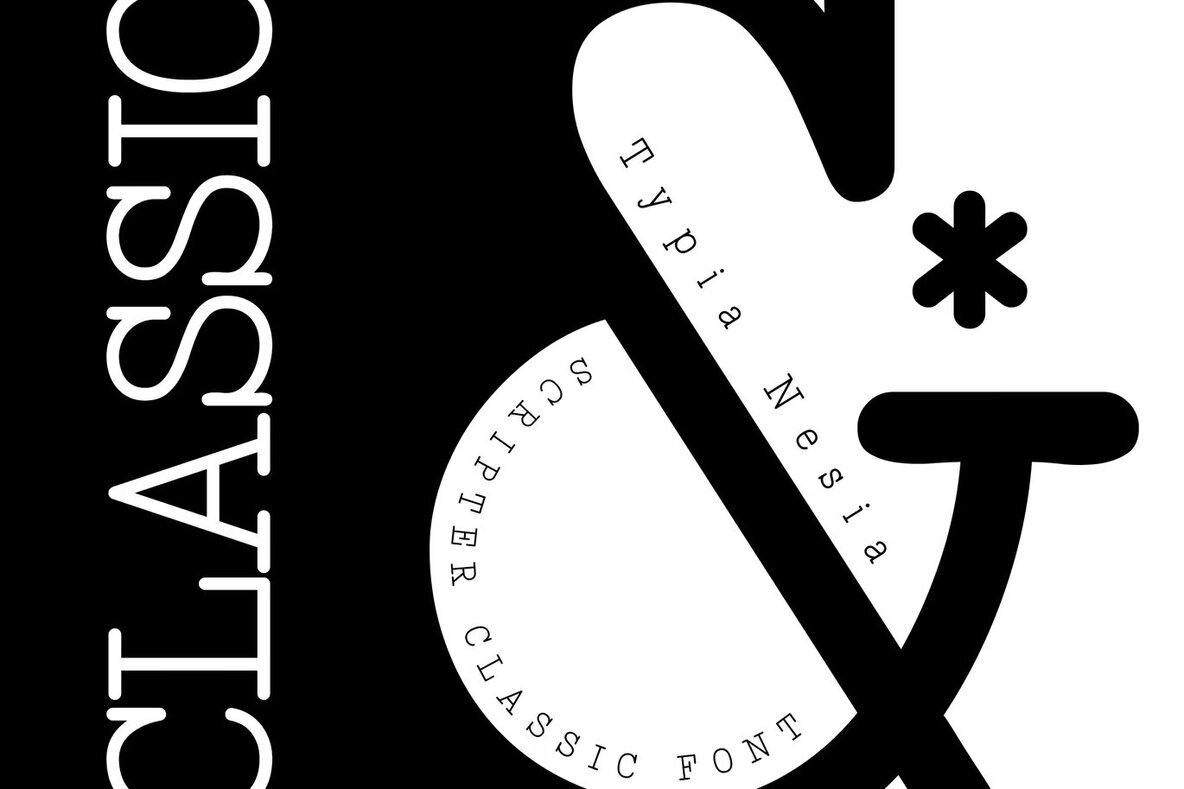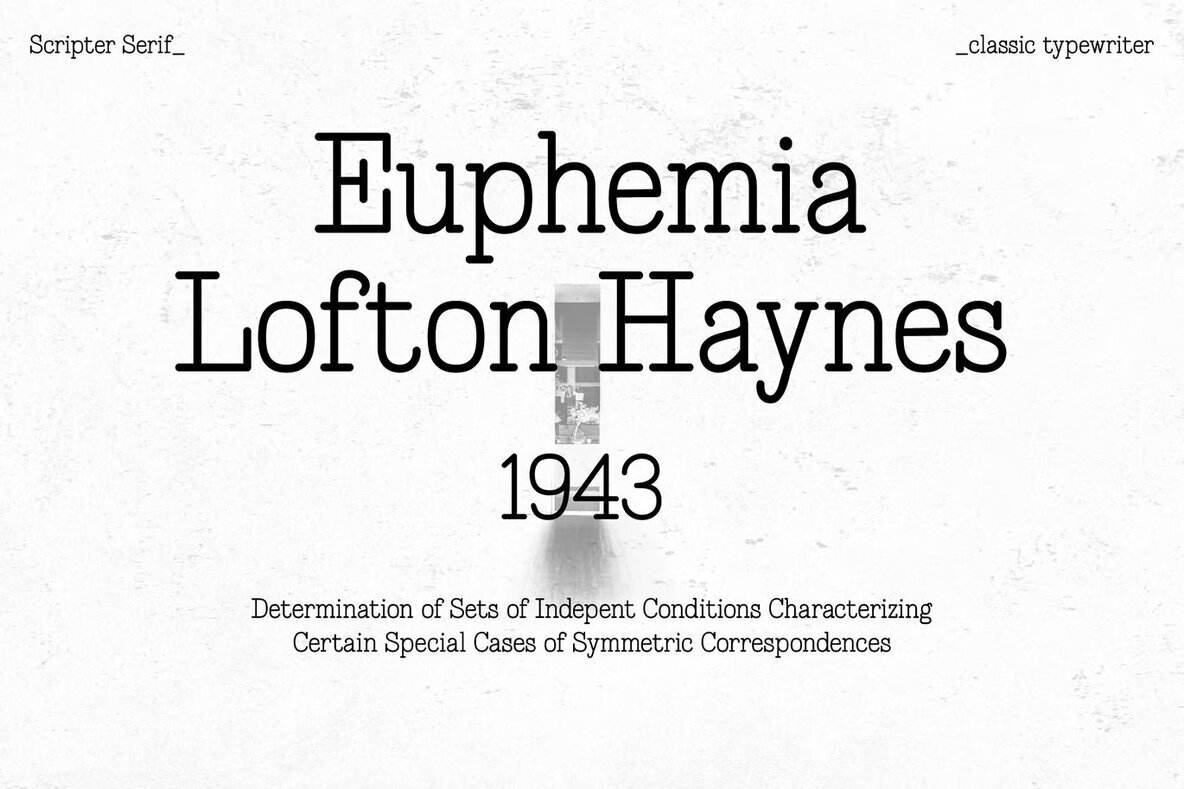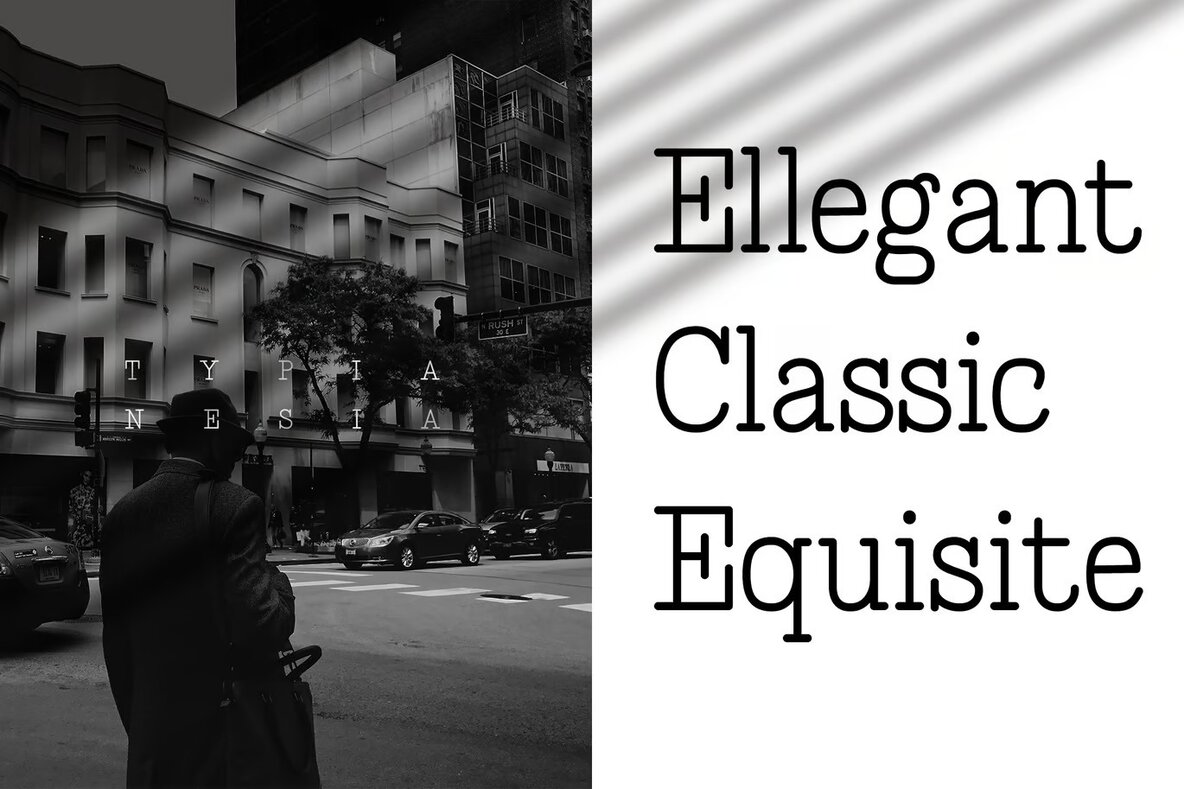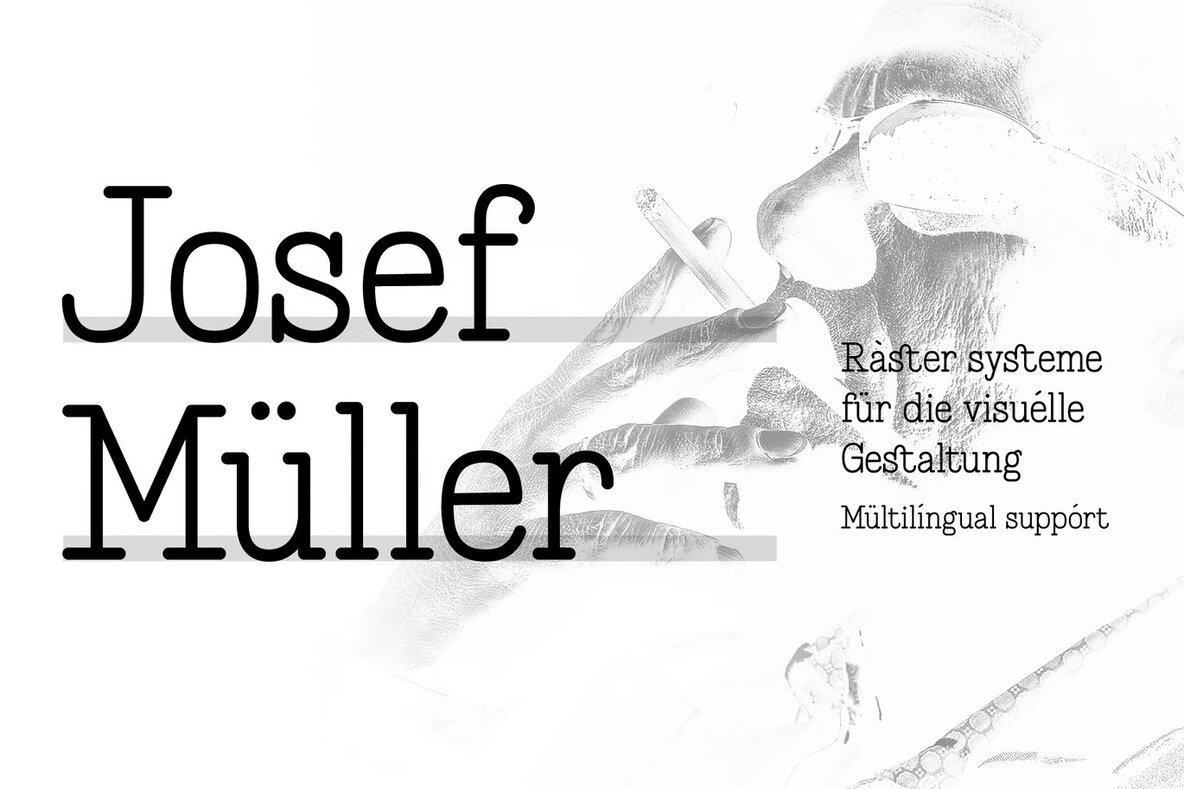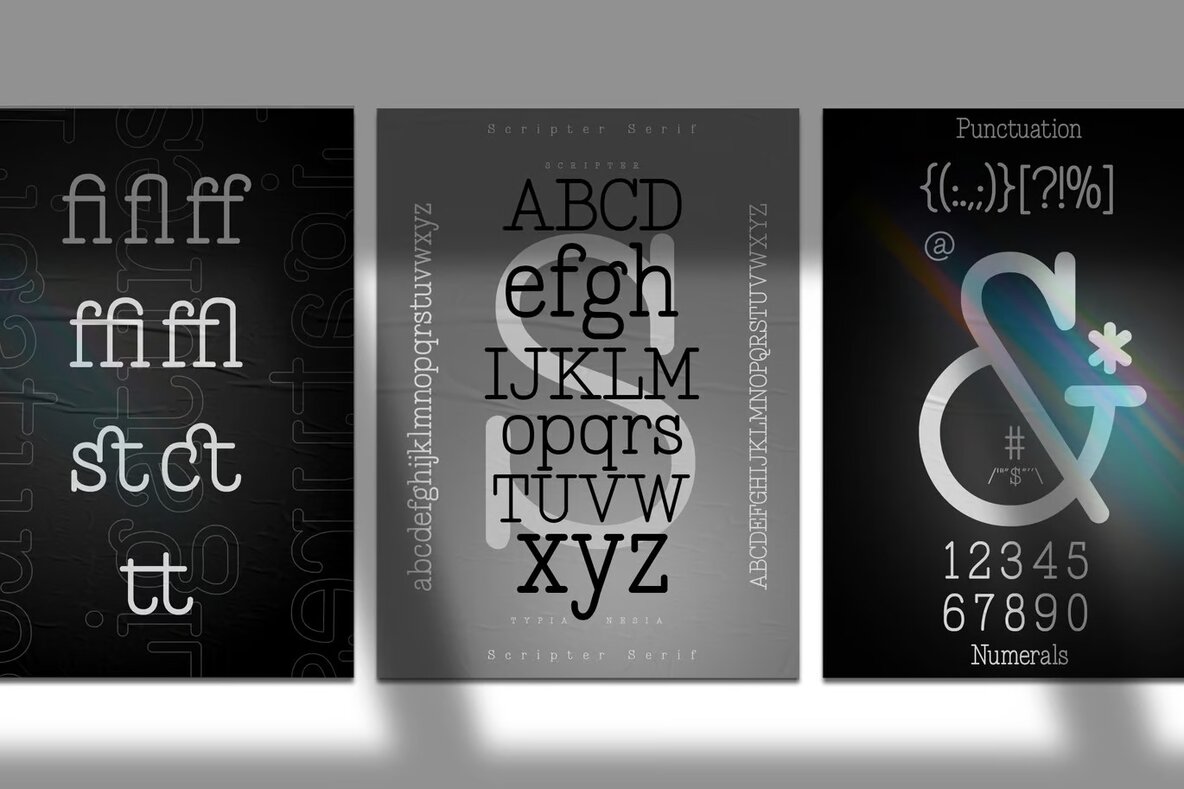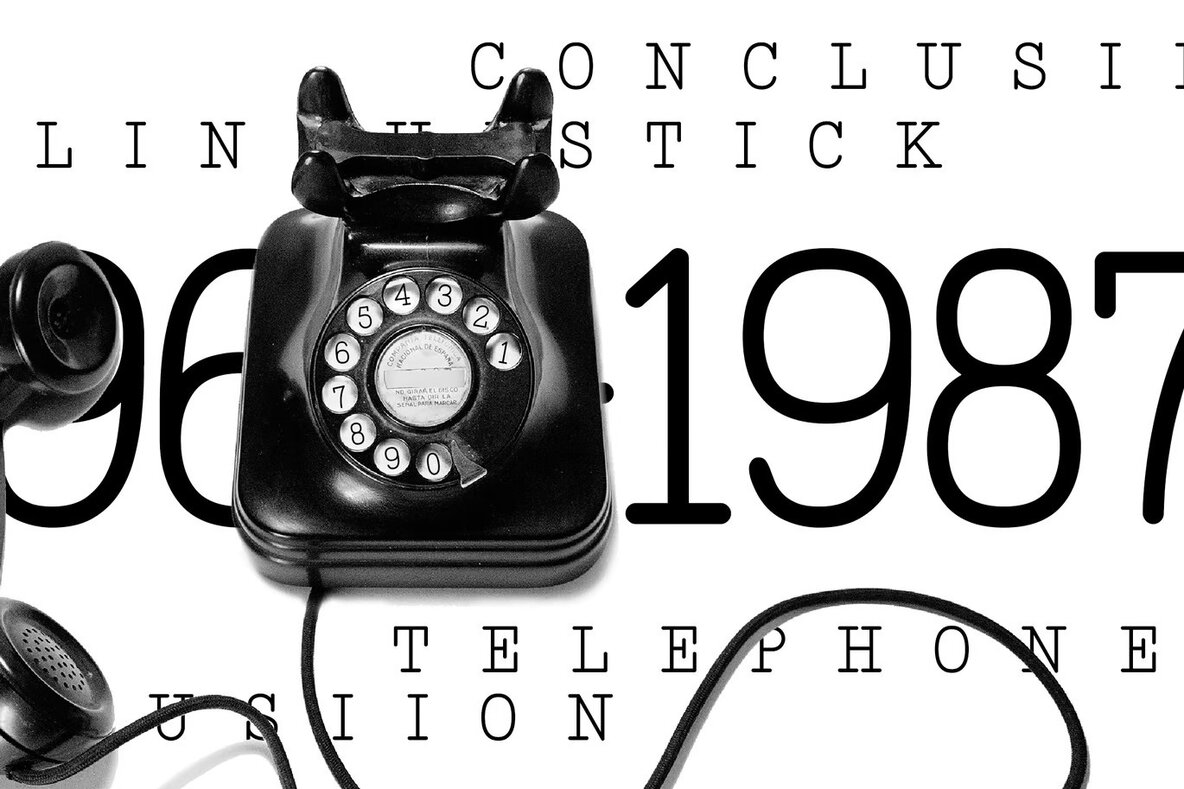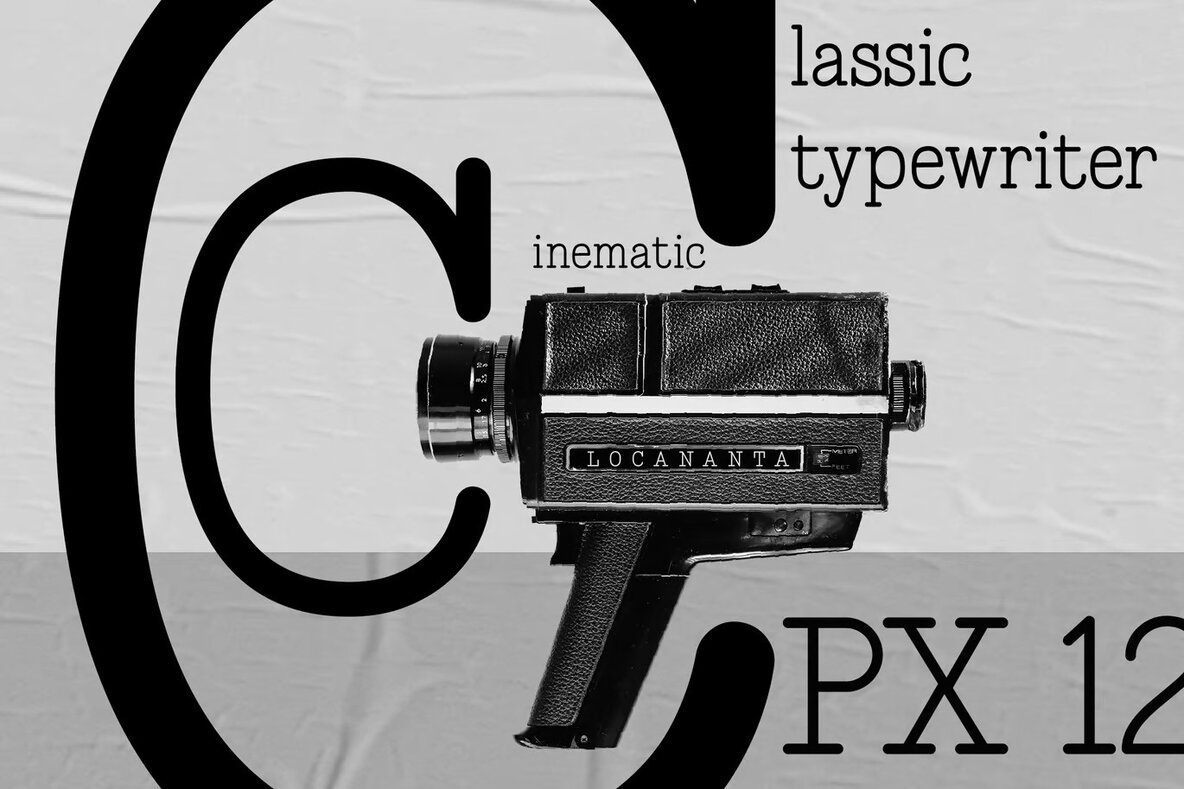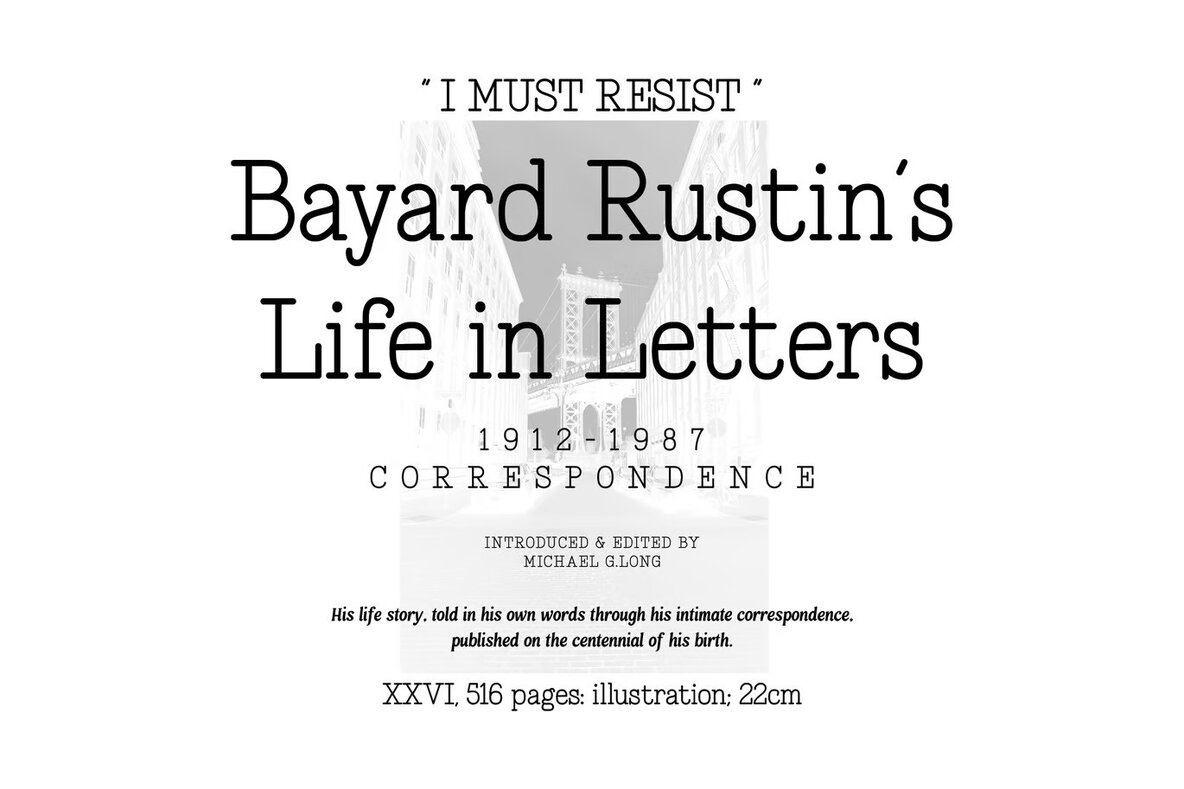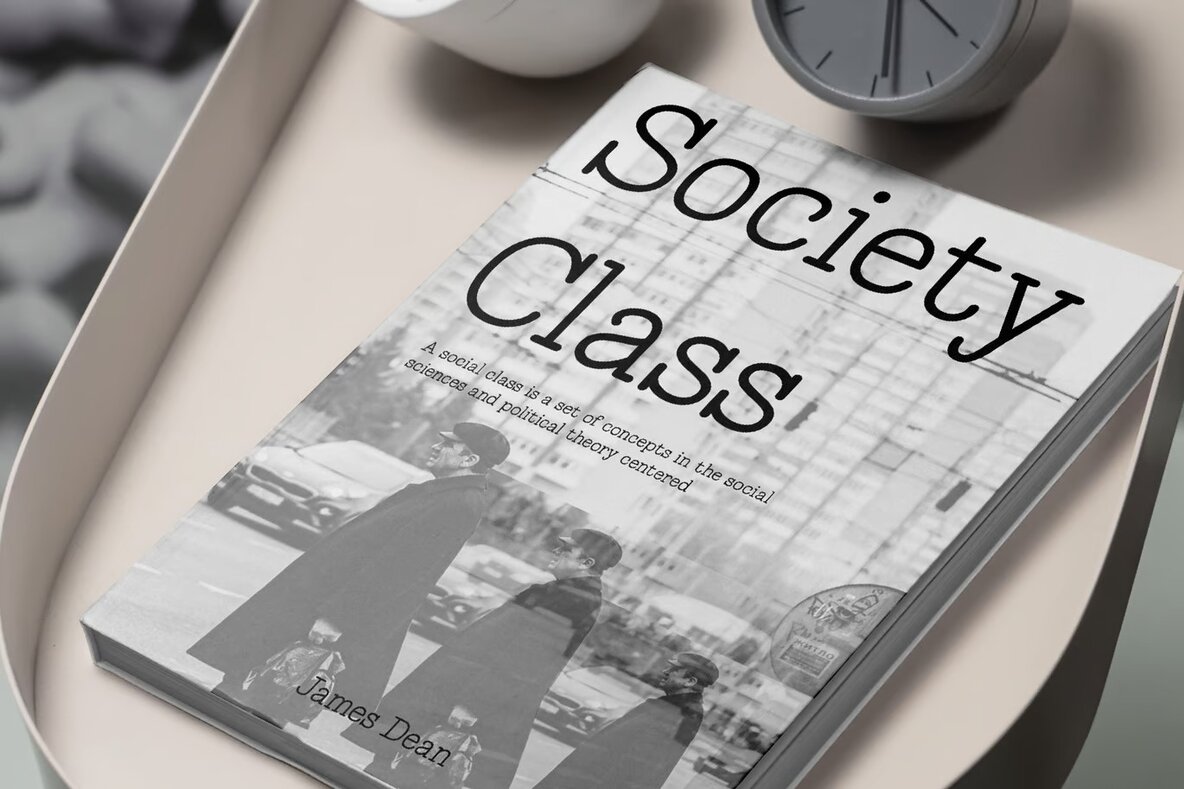
Scripter is a versatile typewriter serif font ideal for a variety of design projects. Its classic aesthetic makes it an excellent choice for creating timeless logos and branding, editorial layouts, and fashion promotions. Whether you're designing for stationery, blogs, advertisements, or wedding invitations, Scripter adds a touch of elegance to your work.
This font not only enriches your art quotes and home decor but also enhances the titles of books and novel covers. Perfect for special events and more, Scripter offers a sophisticated yet approachable style that adapts seamlessly to various design needs. Embrace the classic appeal of Scripter for your next project and enjoy its unique charm.